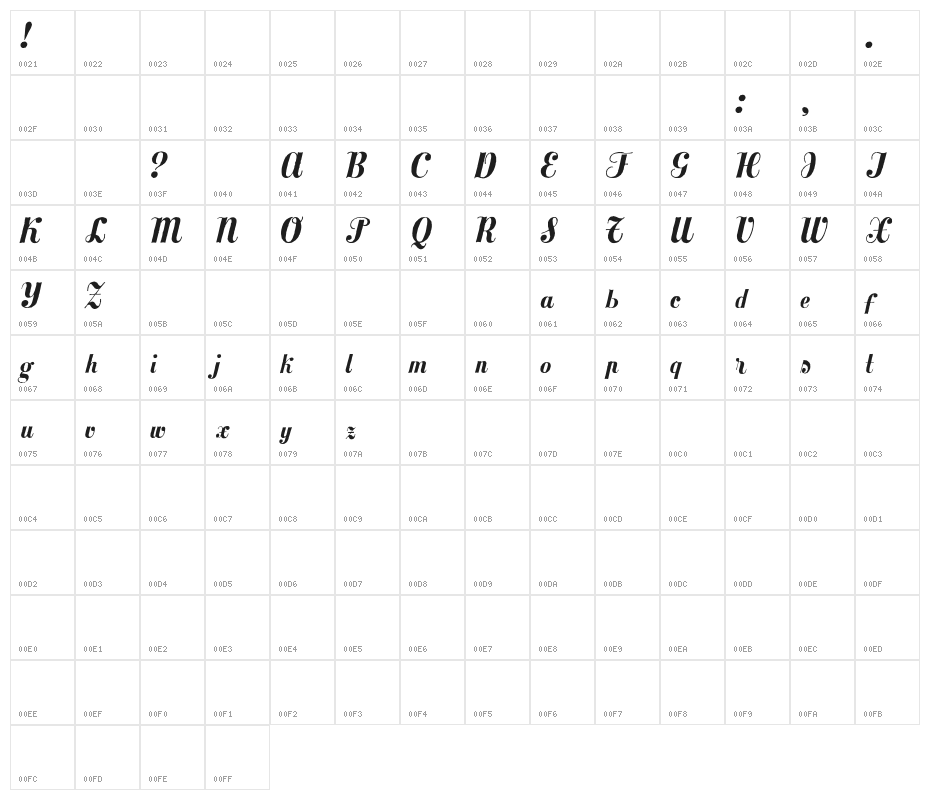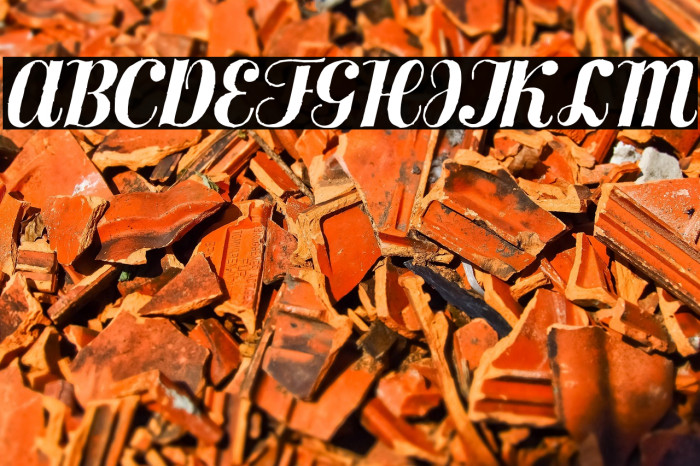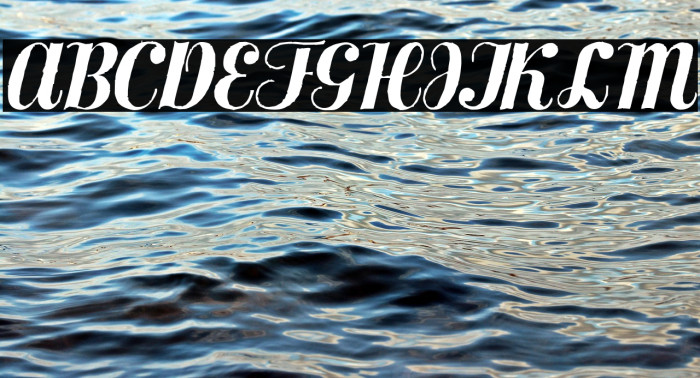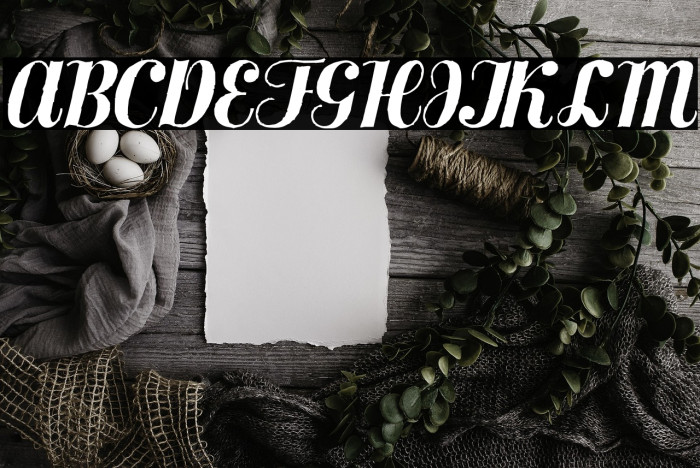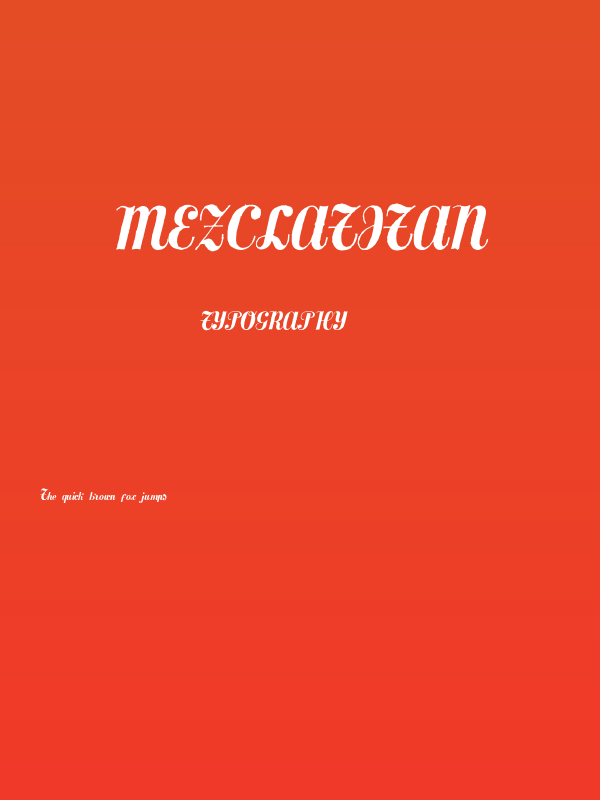
MezclaTitan Font
MezclaTitan Description
This font exhibits a bold and decorative style with a strong emphasis on elegance and flair. The uppercase letters are characterized by dramatic flourishes and swashes, giving them a sense of movement and sophistication. The lowercase letters maintain a consistent style, with some characters featuring unique loops and curves that add to the overall aesthetic. The font's thick strokes and high contrast between thick and thin lines make it particularly striking. It is well-suited for creating eye-catching headlines or logos that require a touch of class and distinction.
Proposed ProjectsIdeal for luxury branding, wedding invitations, fashion magazines, and artistic posters.